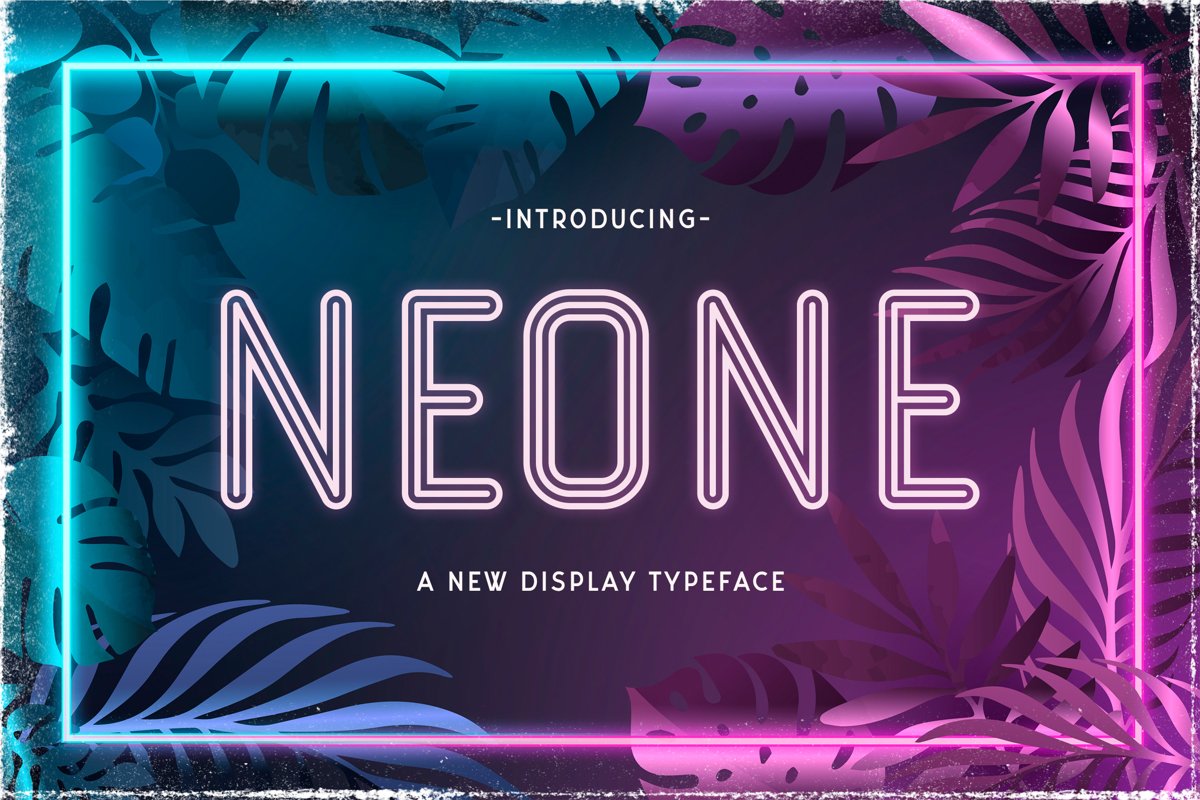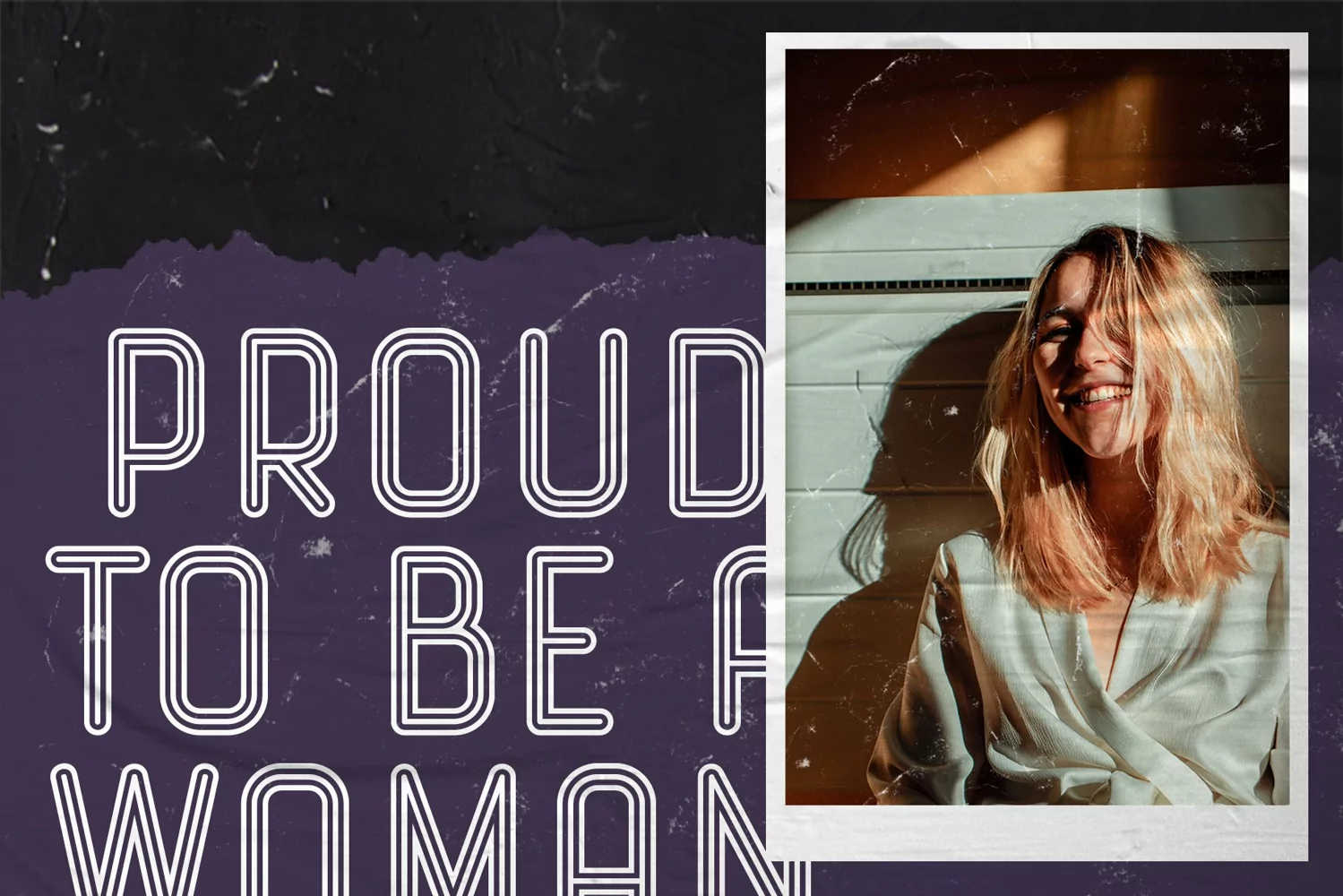
Neone is a display typeface. Perfect for display, quotes, retro style design, logo, logotype, badges, packaging, branding, sign, craft needs, mockup, merchandise, and many more.